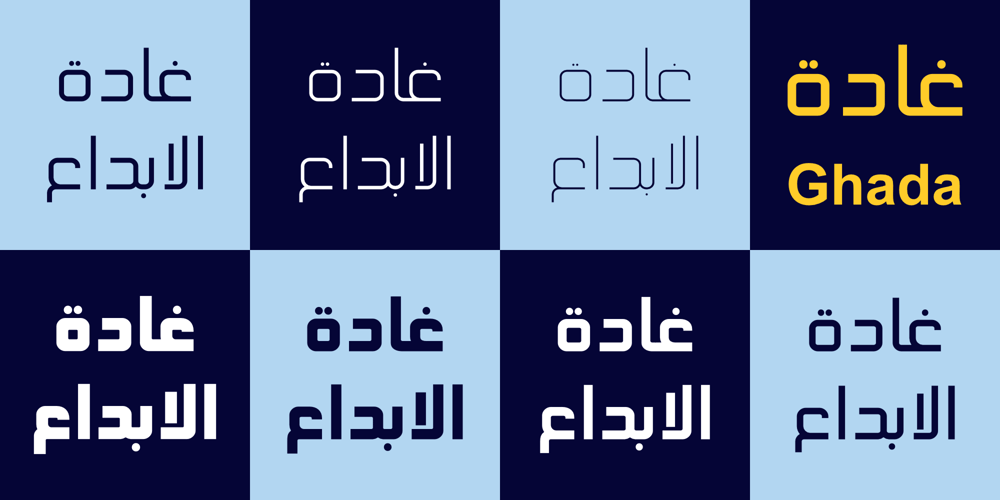
Hasan Ghada Font Family was designed by Hasan Abu Afash and published by Hiba Studio. Hasan Ghada contains 7 styles and family package options. Hasan Ghada is a versatile Arabic display typeface, ideal for titles and graphic projects. The font is inspired by the clean lines of Modern Kufi calligraphy, featuring innovative square shapes and a geometric aesthetic. It supports Arabic, Persian, and Urdu languages.Originally designed in 2002, the first version of Hasan Ghada was released as “KactTitle” by the King Abdulaziz City for Science and Technology (KACST) typefaces group, with support for the Linux operating system. In 2007, the typeface was expanded to include five weights. By 2012, I refined its characters extensively, enhancing its beauty and adding two more weights, bringing the total to seven.